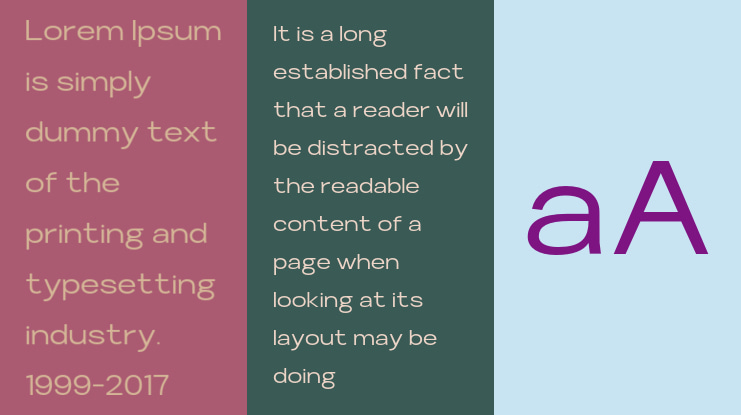
RCL Sentino Font
RCL Sentino is a clean and minimalist sans-serif font family thoughtfully crafted to meet modern design demands. Built on a neutral structure with refined proportions, Sentino offers a balanced and contemporary typographic voice that feels calm, professional, and highly adaptable.